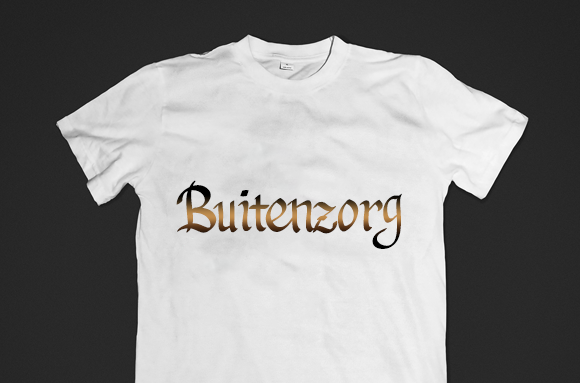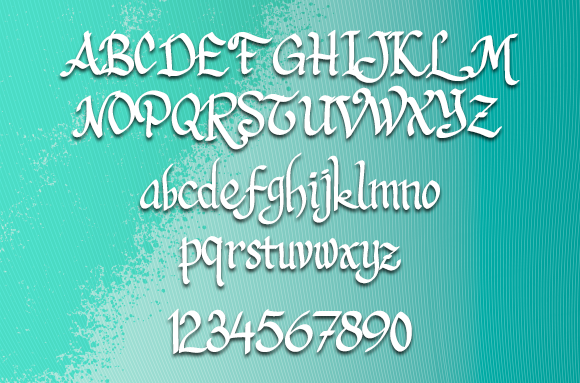
Pangrango Font
About Pangrango Font
Pangrango Typeface is inspired by Mt. Pangrango in West Java. As a handwritten script, this font is suitable for a wide range of project types and uses.